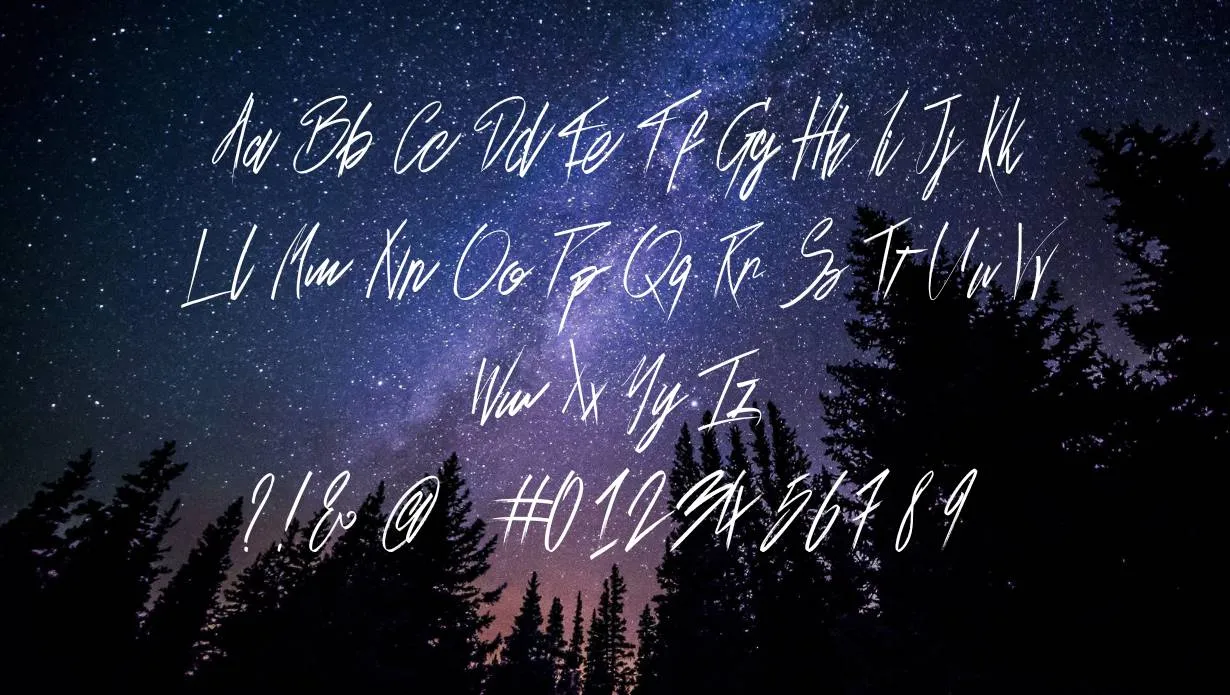
Looking for a font that screams energy and movement? Look no further than the Fast Script Font. This typeface exudes a feeling of speed and liveliness, perfect for adding an exciting touch to your projects. You won’t be disappointed with the energy this font brings! Why not give it a try?
It’s often used in sports branding, racing events, and projects that aim to convey a feeling of action and velocity.
The font’s sweeping strokes create a sense of excitement and movement in your designs.